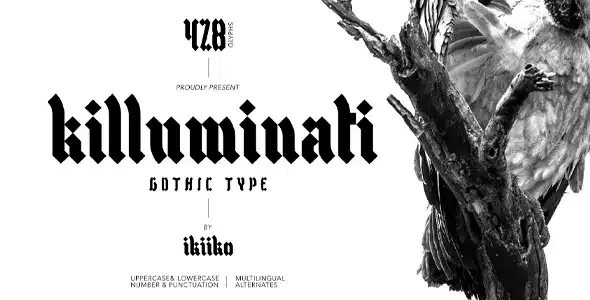
Killuminati Gothic Type Font
Killuminati Gothic Type Font is a simple old english typeface with a modern gothic font style. This typeface is inspired by a gothic and classic rock band logo. killuminati has a bold font with a combination of sharp and curved corners. This font is perfect for a poster event, template, logo, magazine layout, fashion articles, quotes and more.